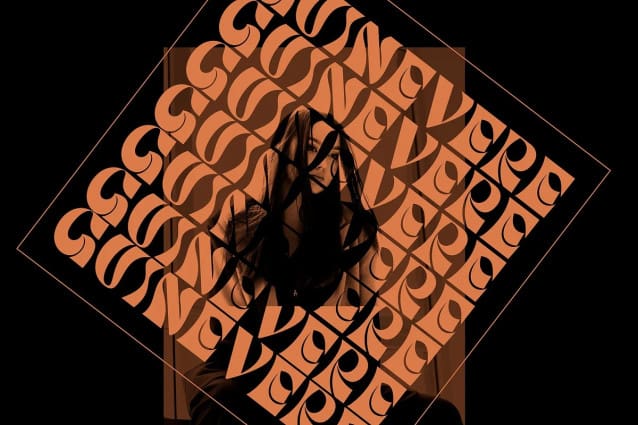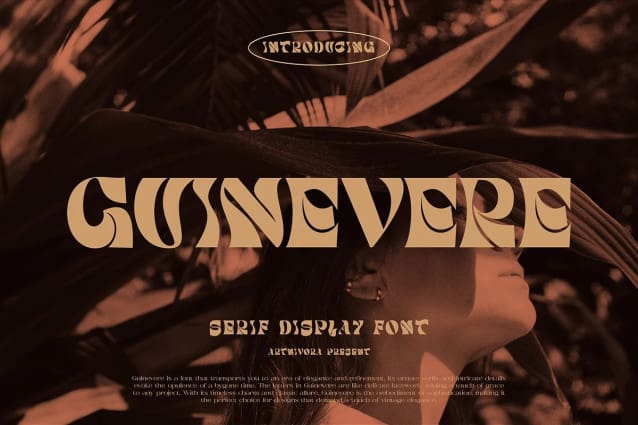
Guinevere Display Font
Guinevere Display Font, a simple and serif display font. So perfect for you who needs a typeface for logo designs, magazine, social media, brochure, and many more.